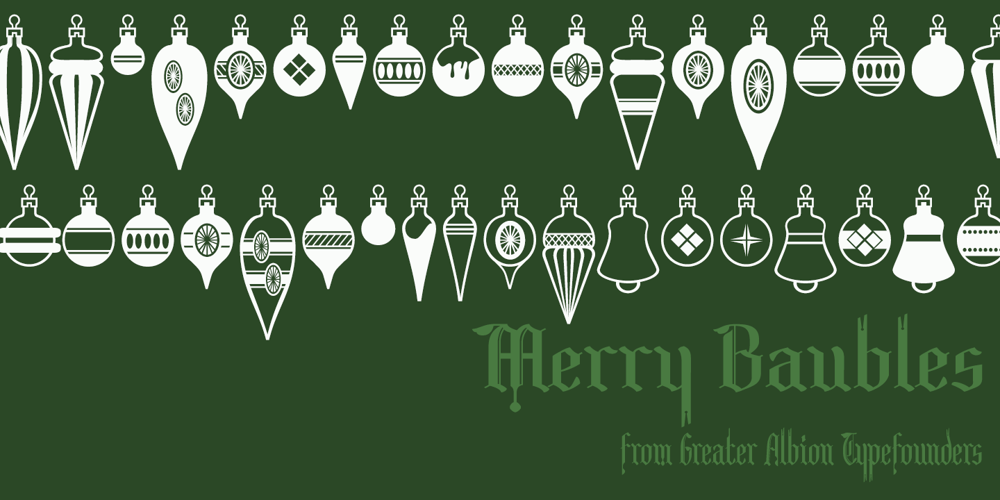
Merry Baubles
Merry Baubles font
Merry Baubles Font Family was designed by Paul James Lloyd and published by Greater Albion Typefounders. Merry Baubles contains 1 styles and family package options. Merry Baubles is a set of fleurons in the form of traditional painted glass Christmas Tree ornaments. That’s really all there is to say about this piece of typographic fun.